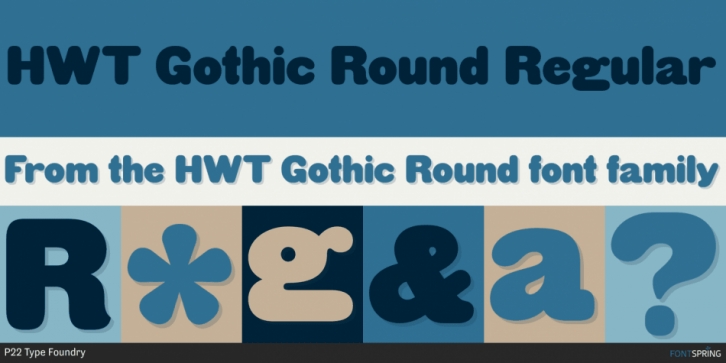
Publisher: P22 Type Foundry
Designed by Miguel Sousa, HWT Gothic Round is a display font published by P22 Type Foundry.
Gothic Round was first introduced as wood type by the George Nesbitt Co. in 1838. The font is a softened variation of a standard heavy Gothic typeface. The style evokes a much more recent history of the 1960s and 70s and can be seen in such places as donut shops and on children’s toys as well as inspiration for such fonts as VAG Rounded.
Gothic Round has not previously been available as a digital font until now. The font was digitized by Miguel Sousa from a wide variety of historical sources, including visits to the Cary Collection at RIT (Rochester, NY), WNY Book Arts Center (Buffalo, NY) and the Hamilton Wood Type Museum (Two Rivers, WI). The result is a very solid and contemporary font with a 175 year history.